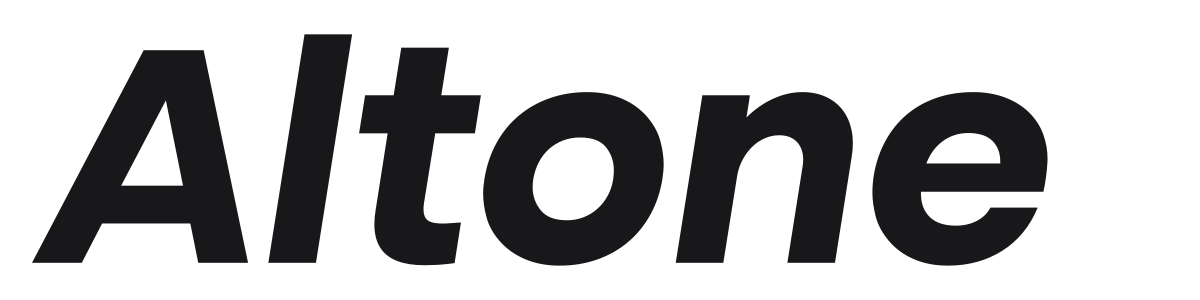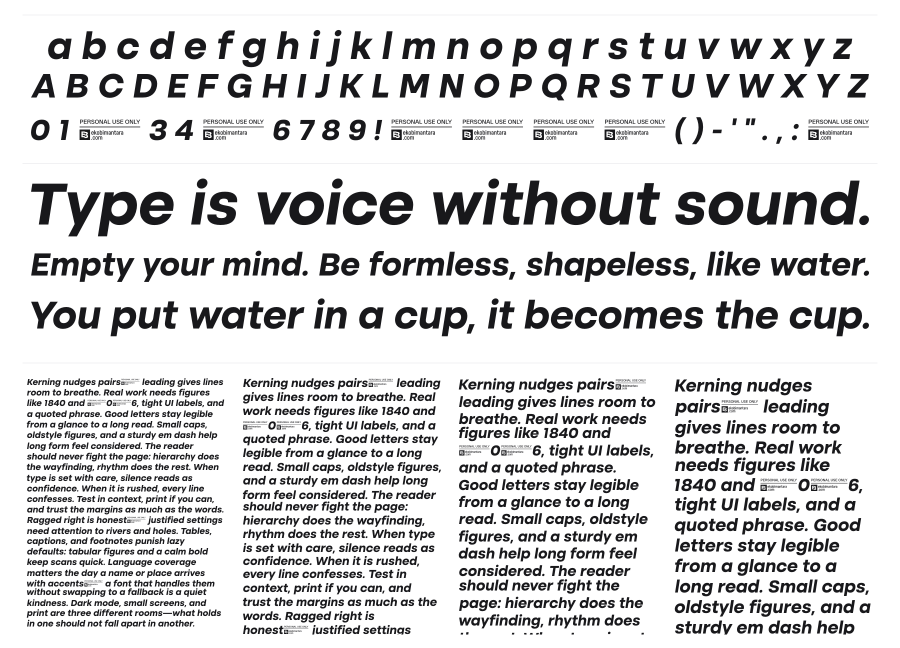
Altone
by Eko Bimantara
Altone is a bold italic neo-grotesque sans with wide proportions and clean, near-monoweight strokes. It sits in familiar territory between a classic European grotesque and a modern geometric, but its generous width and smooth terminals give it a distinctly contemporary feel. Strong in headlines, logos, and anywhere that needs confident, unfussy weight.